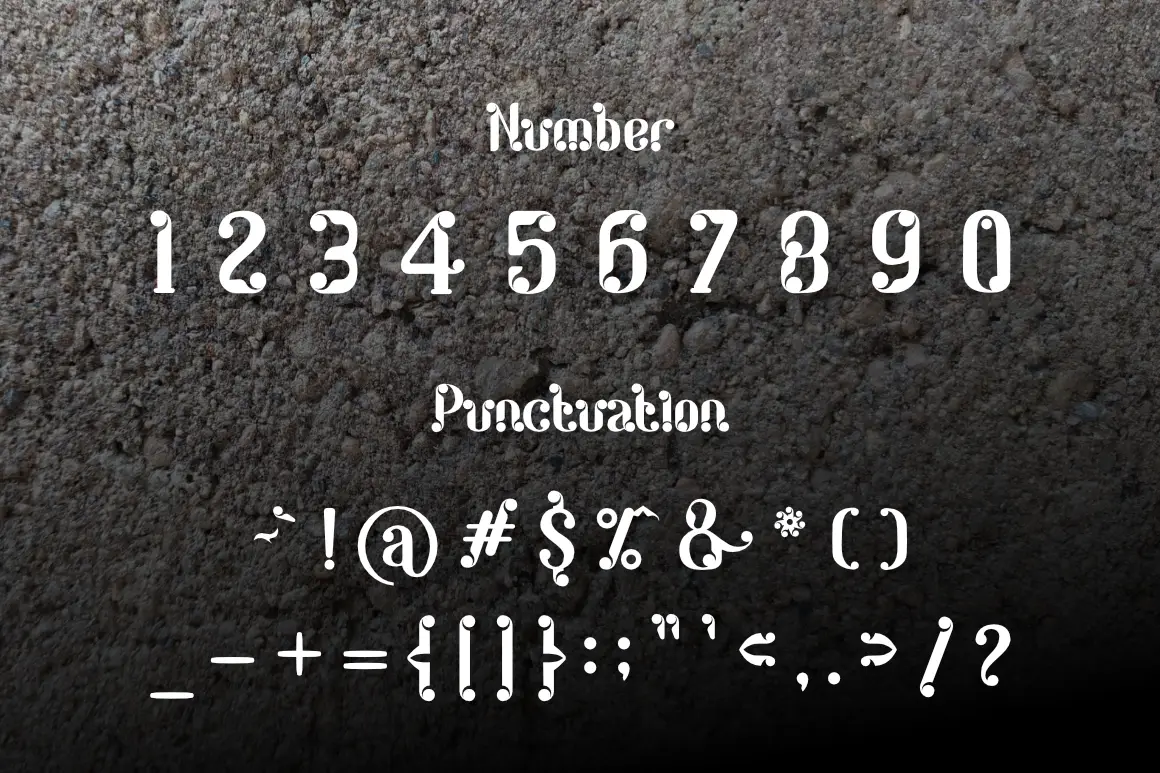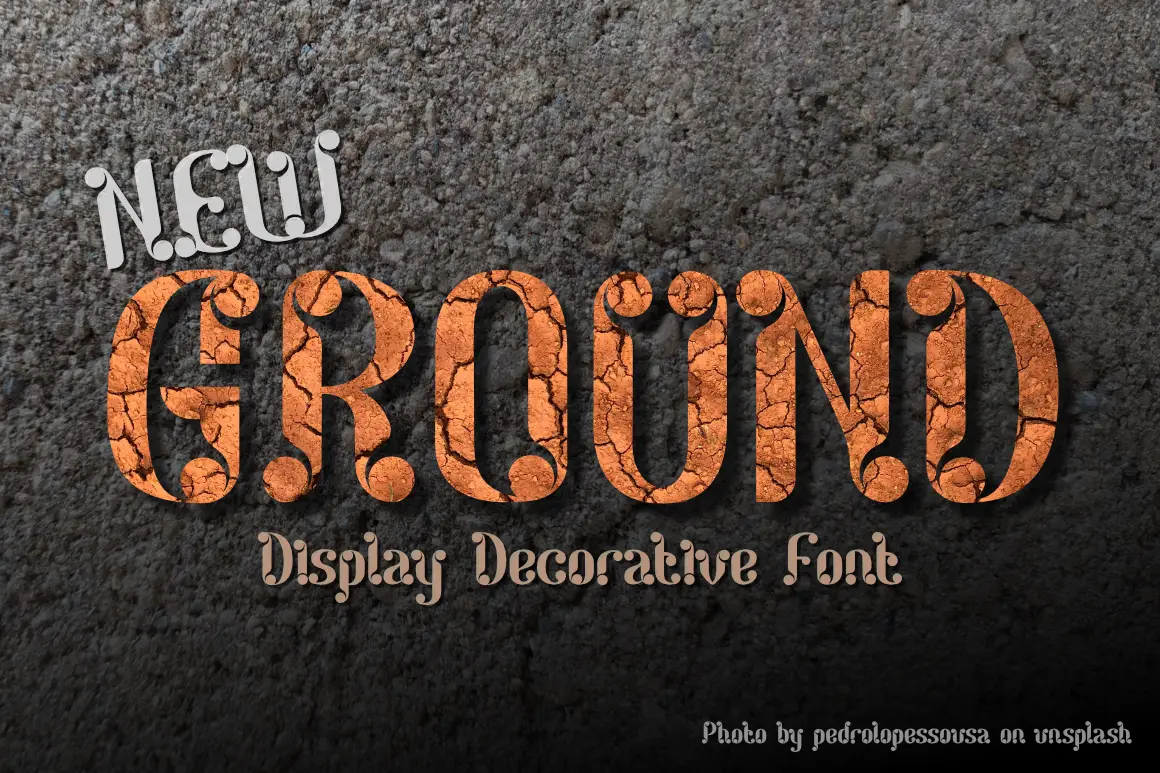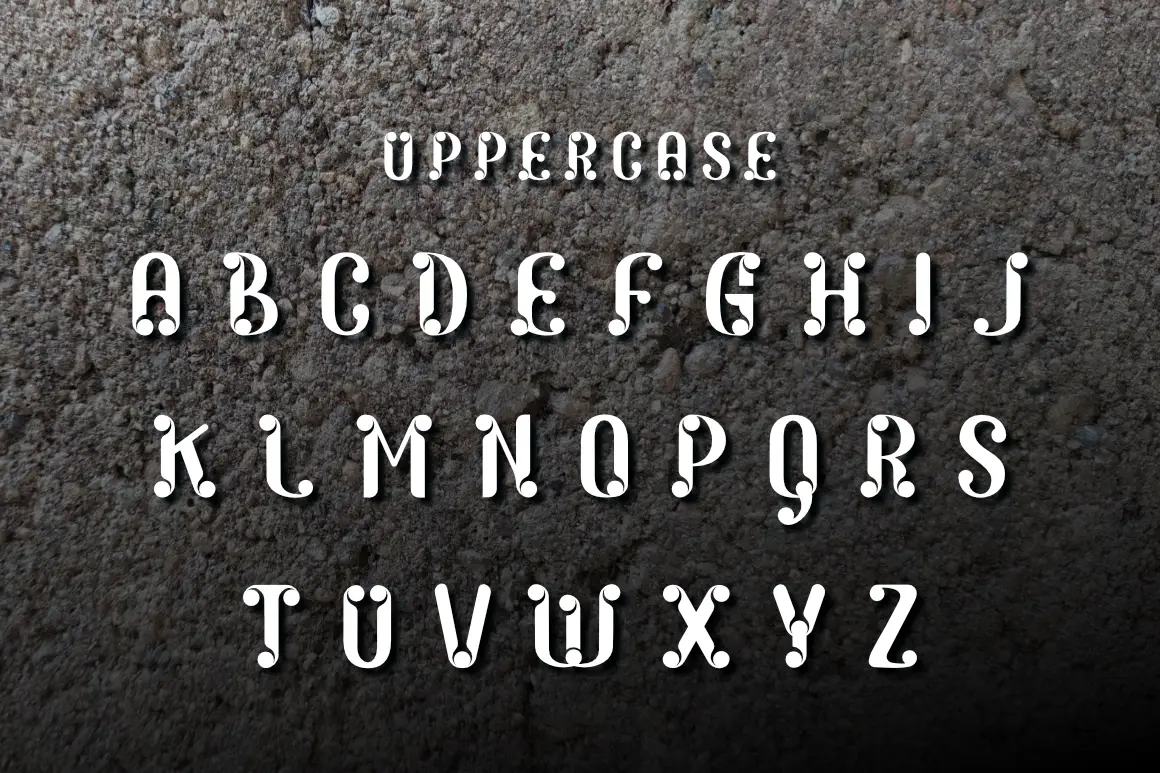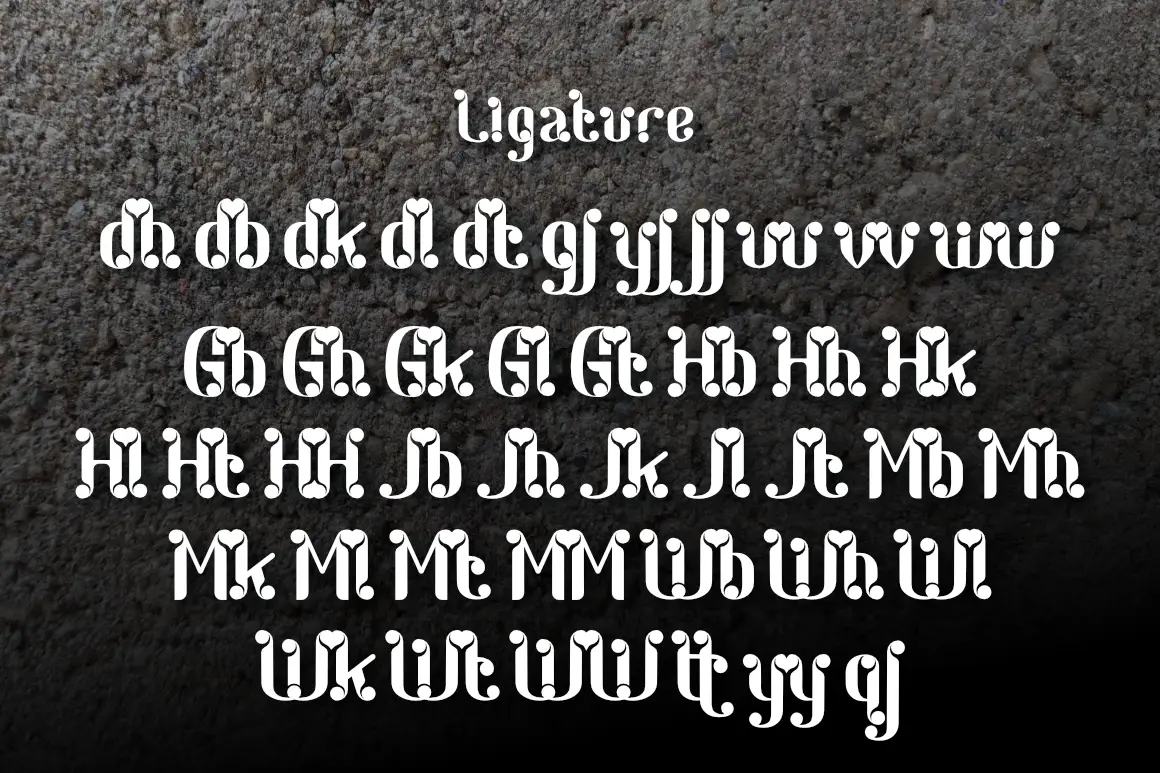
Ground Font
The Ground Font is a versatile typeface designed for a variety of applications, from branding to web design. With its clean lines and modern aesthetic, this font is perfect for creating impactful visuals.
• Ideal for logos, branding, and marketing materials.
• Great for both print and digital projects.
• Use different weights to create visual hierarchy in your designs.